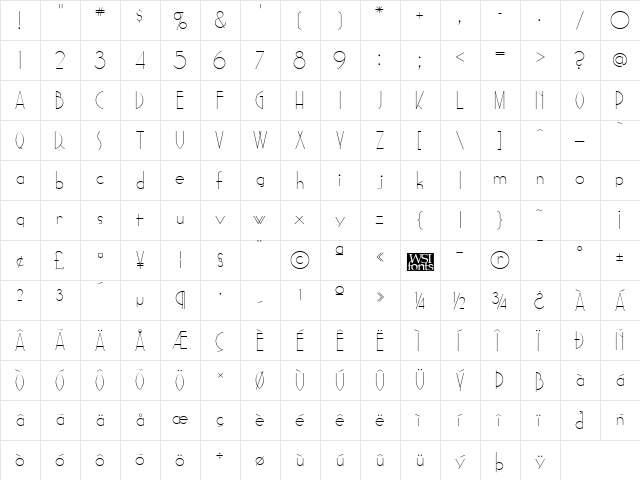
Sadelle Regular
Design Context for Sadelle Typeface
Sadelle is a composed and adaptable typeface that performs quietly and consistently across a wide range of design contexts.